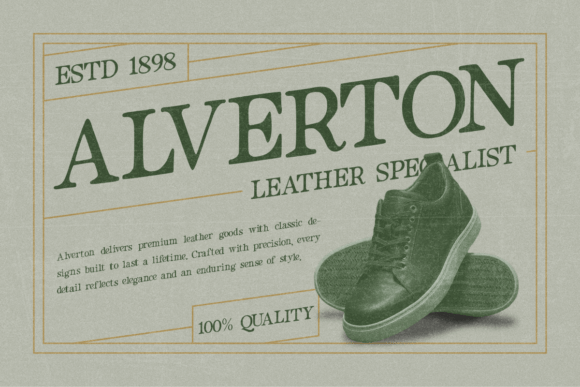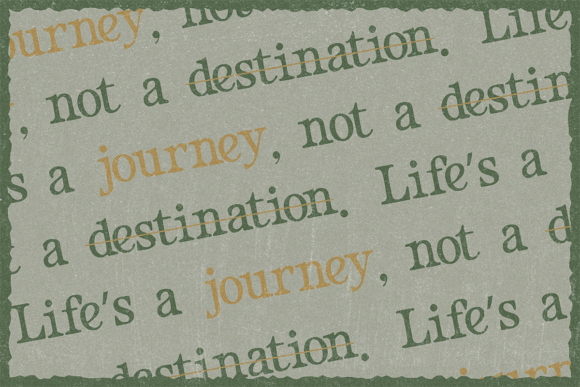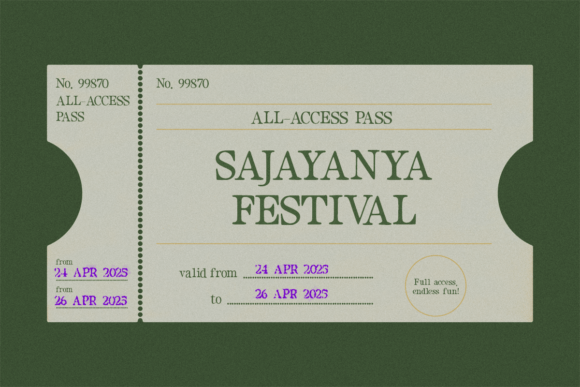
Introduction to Lastire Font
As a designer, there’s no feeling quite like stumbling upon the perfect font for your next creative project. The thrill of discovery, the rush of excitement as you envision your design come to life – it’s a moment we’ve all experienced. And for those of us who’ve been searching for a font that exudes timeless elegance and sophistication, our prayers have been answered with the introduction of Lastire Font.
With its high-contrast serifs and vintage stamp effects, Lastire Font is the perfect addition to any design arsenal. Its unique blend of bold lettering and classic typography makes it an invaluable resource for designers seeking to add a touch of refinement and retro charm to their work. Whether you’re working on a branding project, editorial layout, poster, or packaging design, Lastire Font is sure to elevate your creative vision.
Lastire Font
- High-quality typography with a unique, creative design perfect for various projects.
- Designed to be highly legible and versatile, making it suitable for use in a wide range of design applications, from digital displays to printed materials.
- Perfect for use in creative projects, including branding, advertising, and editorial design, where a unique and high-quality font is essential.
Honest Review: Lastire Font
I recently had the chance to work with the Lastire Font, and I must say it’s a great addition to any design arsenal. This high-quality font offers a unique blend of modern and vintage styles, making it perfect for creative projects that need a touch of sophistication.
One of the standout features of the Lastire Font is its transparent background, which allows for seamless integration with any design element. The font is also incredibly versatile, with a range of weights and styles to choose from, making it easy to find the perfect fit for your project.
Here are some of the things that work well with the Lastire Font:
- ✨ High-quality design with a unique blend of modern and vintage styles
- ✨ Transparent background for seamless integration with design elements
- ✨ Versatile with a range of weights and styles to choose from
- ⚠️ Limited character set, which may be a concern for projects that require a wide range of characters
- ⚠️ Some users may find the font too ornate or busy for certain designs
Overall, I’m impressed with the Lastire Font, and I would highly recommend it to designers looking for a high-quality, versatile font for their creative projects.
Lastire Font is commonly used in creative projects such as logos, graphics, and infographics. It’s also great for adding a professional touch to presentations, reports, and other documents.